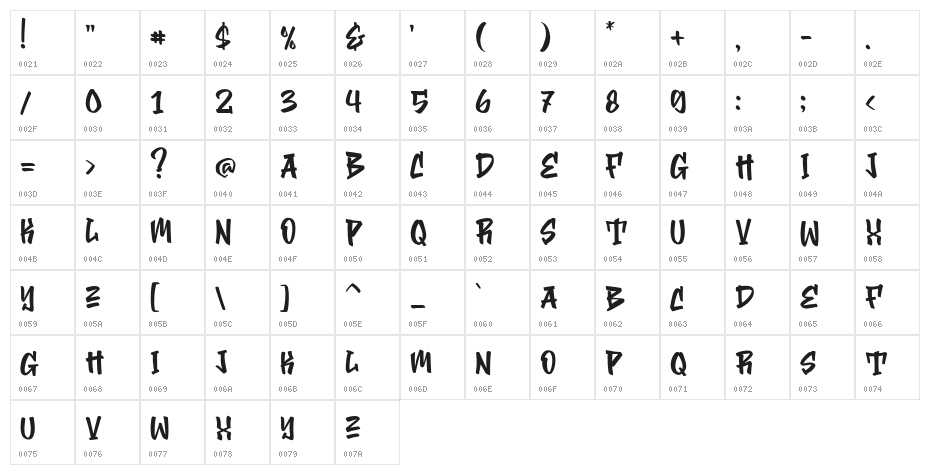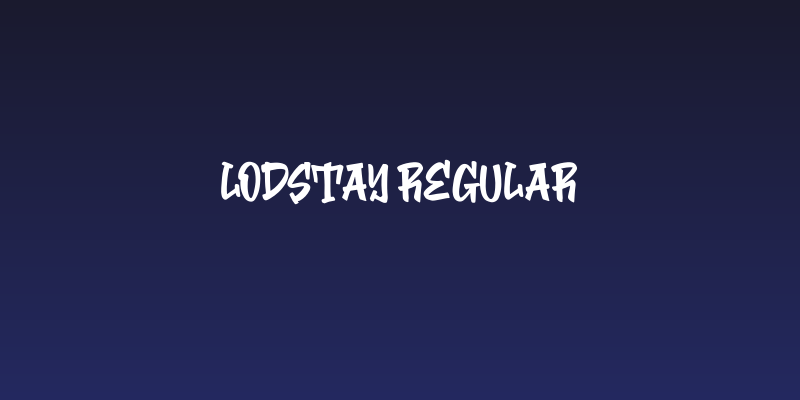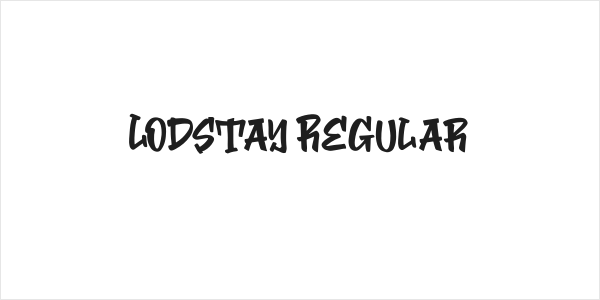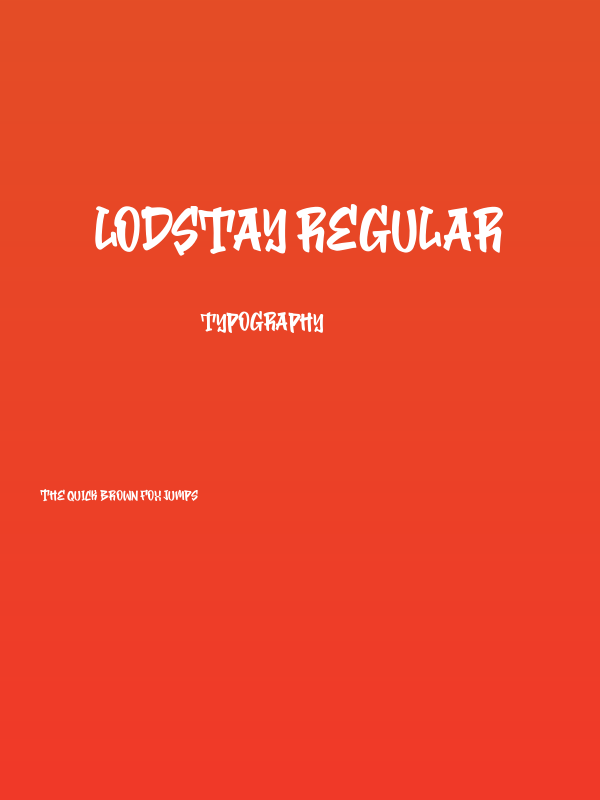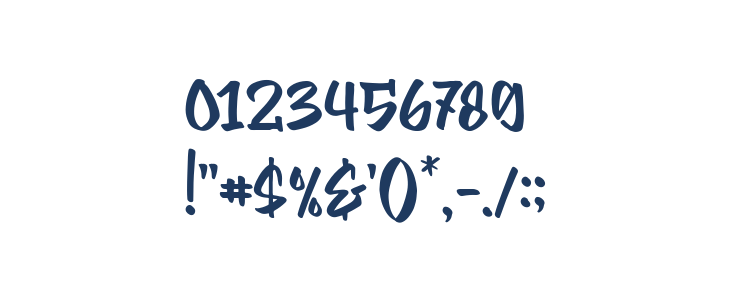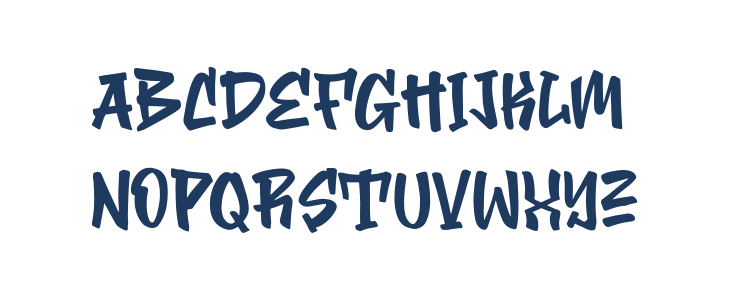
Lodstay Regular Font
Lodstay Regular Description
This font features a bold, energetic style with a handwritten feel, characterized by its thick, dynamic strokes and playful curves. The uppercase letters are particularly striking, with a sense of movement and flair that adds a lively touch to any text. The lowercase letters maintain this energy, offering a cohesive look throughout. Numbers and special characters are equally bold and expressive, making them stand out in any design. The overall appearance is both modern and casual, suitable for projects that require a personal, informal touch.
| Overall Style | Modern, Casual |
| Proposed Projects | Ideal for branding, posters, social media graphics, and any project needing a lively, personal touch. |